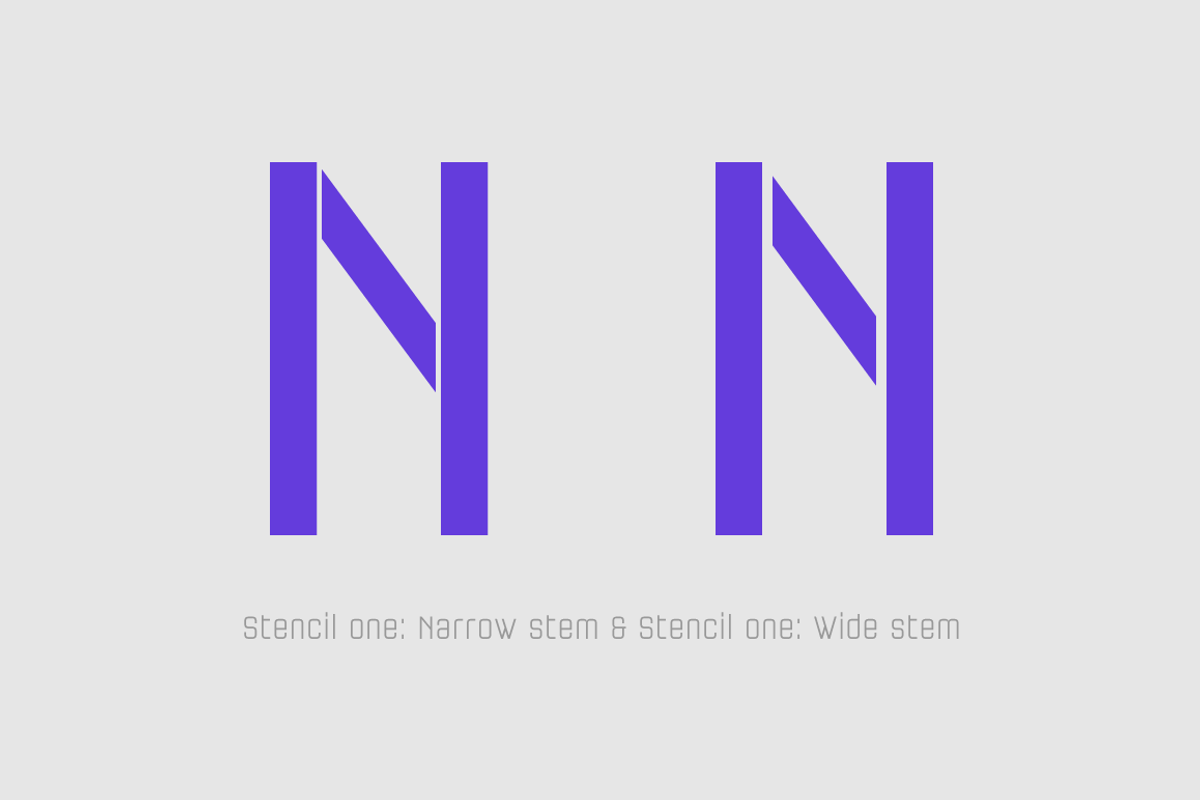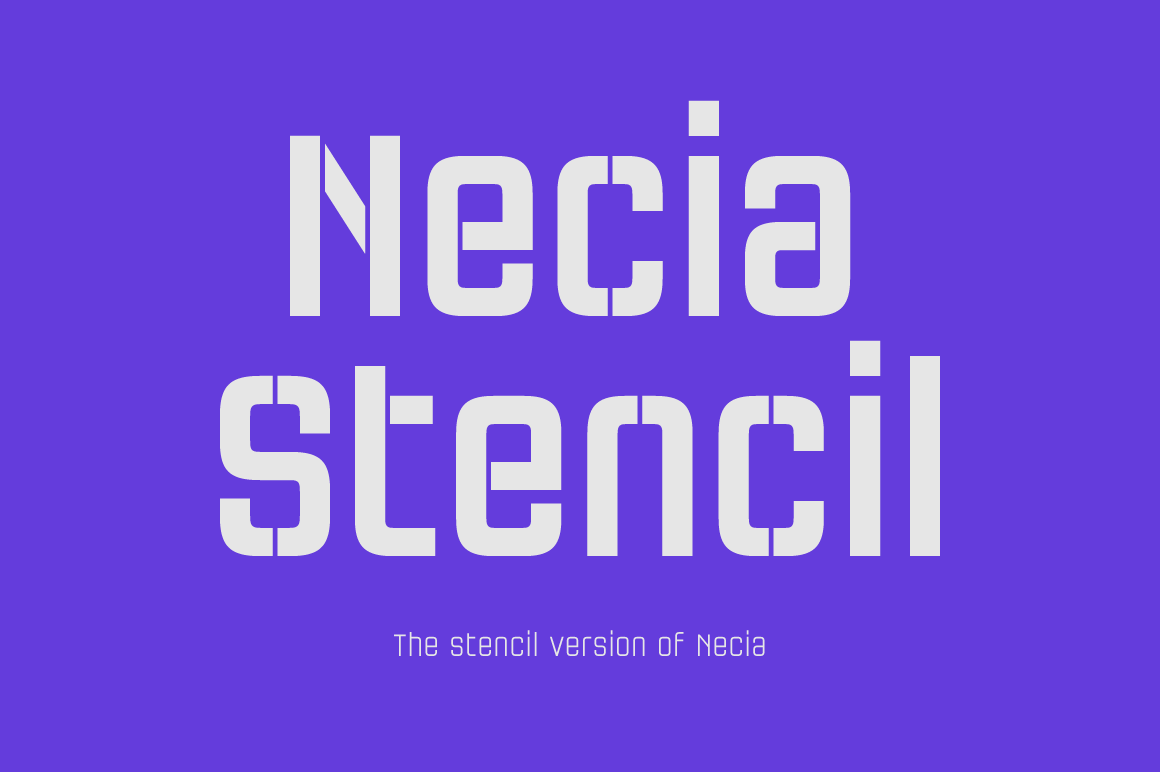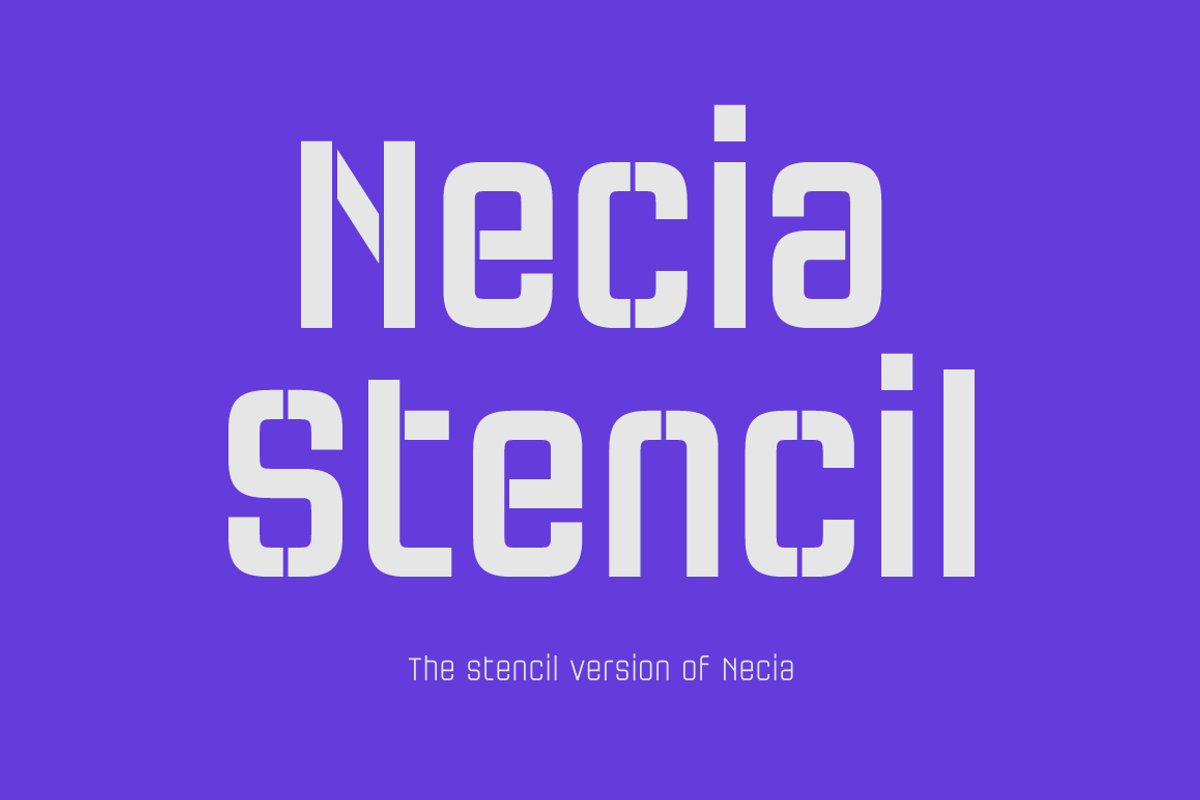
Necia Stencil Font Family
Designer: Pablo Balcells
Design date: 2014
Necia Stencil font family is the stencil version of Necia font family, it has been designed for Graviton Font Foundry by Pablo Balcells in 2014.
Necia Stencil consists of 16 styles. The 8 “Stencil 1” styles contain a narrow stem for big sizes type and/or rigid materials printing, and the 8 “Stencil 2” styles contain a wide stem for small sizes type and/or light materials printing.